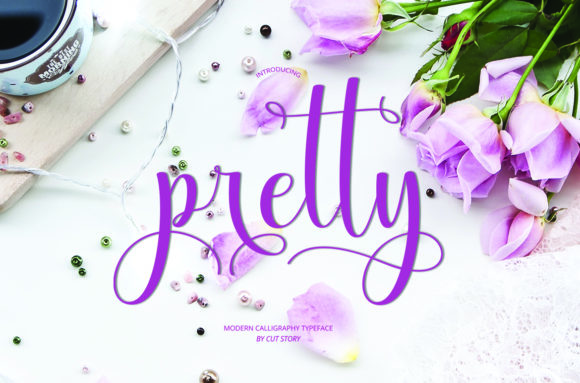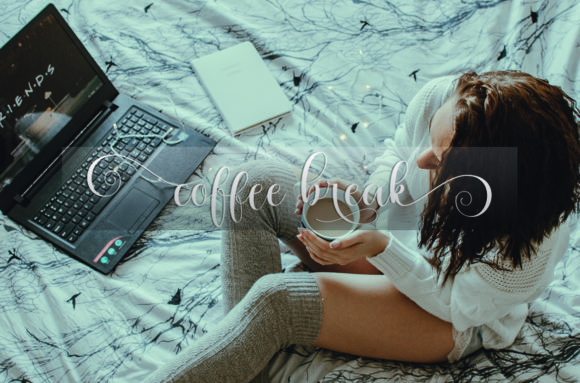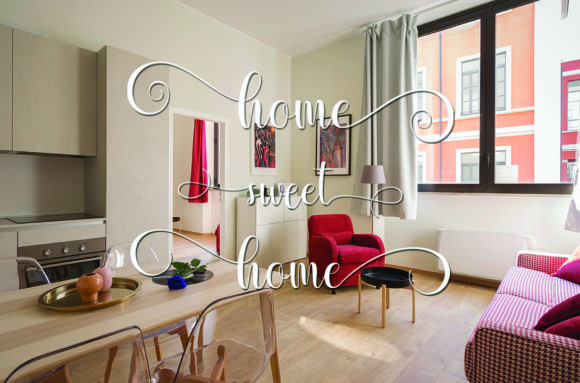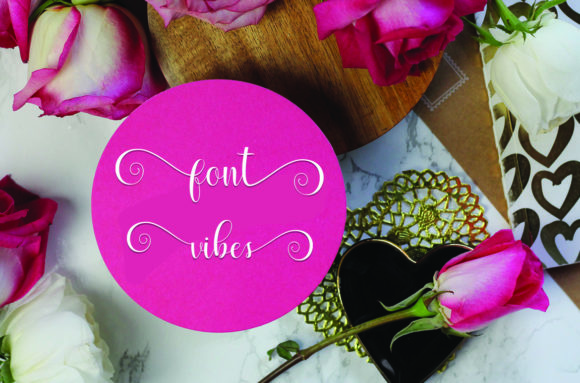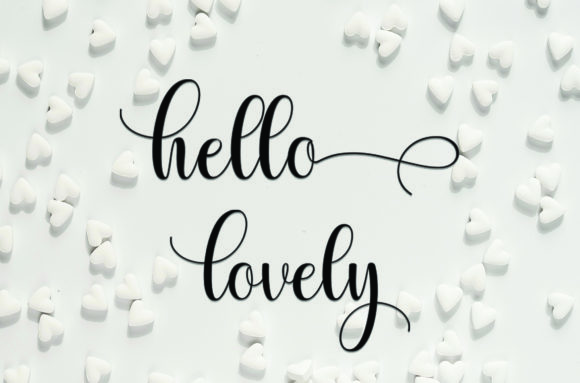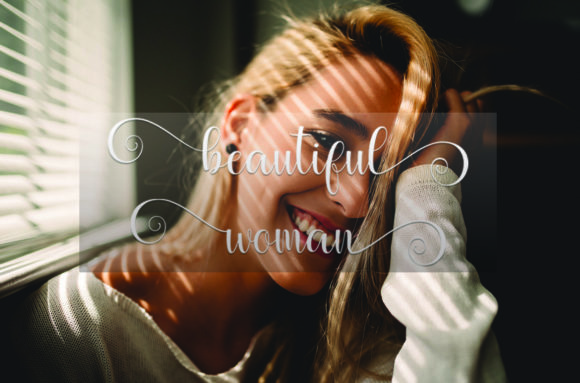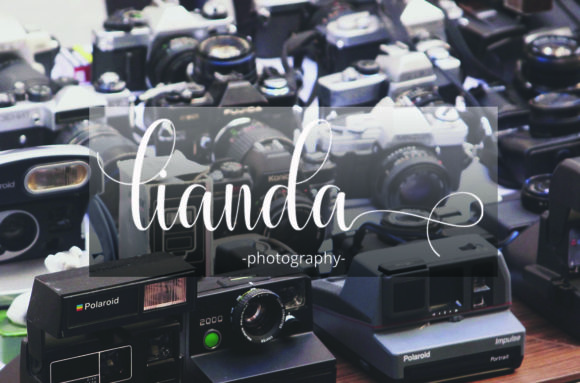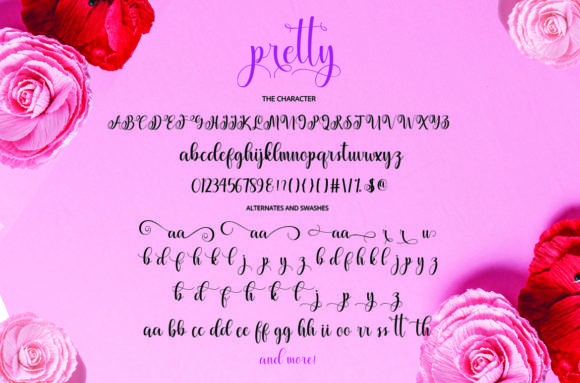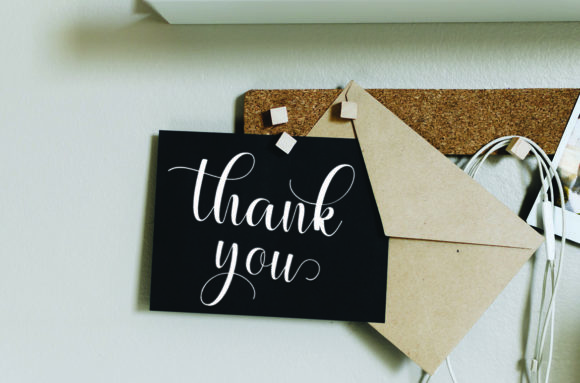
Pretty Font
About Pretty Font
Pretty is inspired by classic typography and brings its own unique style to any design project. This script font is PUA encoded which means you can access all of the beautiful glyphs and swashes with ease!